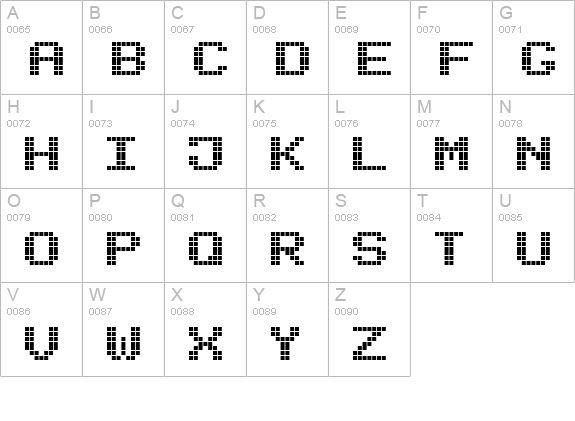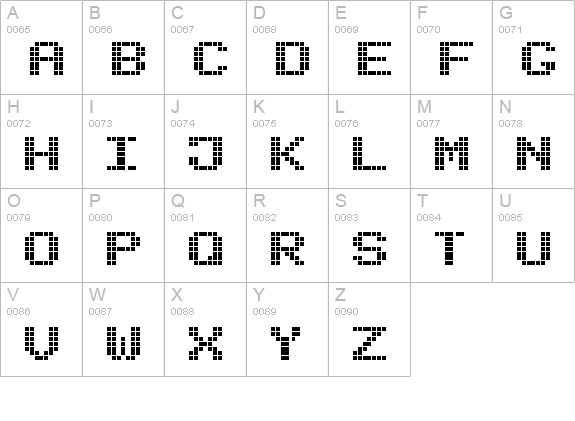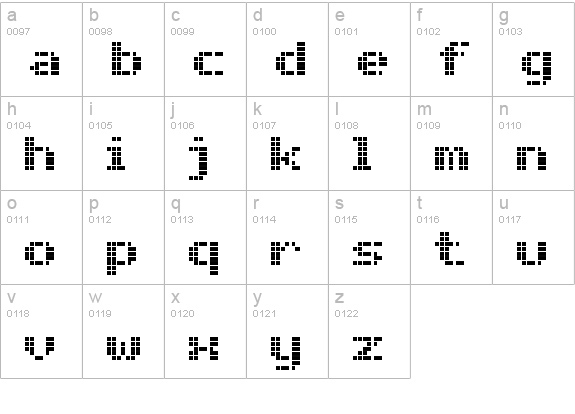
Bold LED Board-7 Font Details
Bold LED Board-7 is a strong, high-contrast variant in the Bold typeface family \xE2\x80\x94 well suited to headlines, attention-grabbing titles, and strong calls-to-action.
The Bold LED Board-7 font is a stunning display font that captures the essence of boldness and modernity. Its sleek and futuristic design makes it perfect for various design projects that require a touch of contemporary style. The characters are meticulously crafted with clean lines and sharp edges, giving them a distinct LED-like appearance. What sets the Bold LED Board-7 font apart is its versatility. It can be used for a wide range of purposes, from eye-catching headlines to striking logos and advertisements. Whether you want to create attention-grabbing posters, captivating social media graphics, or innovative website designs, this font will surely make your message stand out. One of the best things about Bold LED Board-7 font is that it is freely available to download at FontsMarket.com. This means that you don't have to worry about any additional costs or limitations when using it for your personal or commercial projects. You can freely explore the font's potential and unleash your creativity without any restrictions. With its bold and dynamic nature, the Bold LED Board-7 font is guaranteed to leave a lasting impression on your audience. Its high legibility ensures that your message will be easily understood, even from a distance. So, whether you're designing signage for a store, creating striking visuals for a presentation, or simply looking to add a touch of modernity to your design projects, the Bold LED Board-7 font is the perfect choice. Download it today from FontsMarket.com and let your creativity shine!